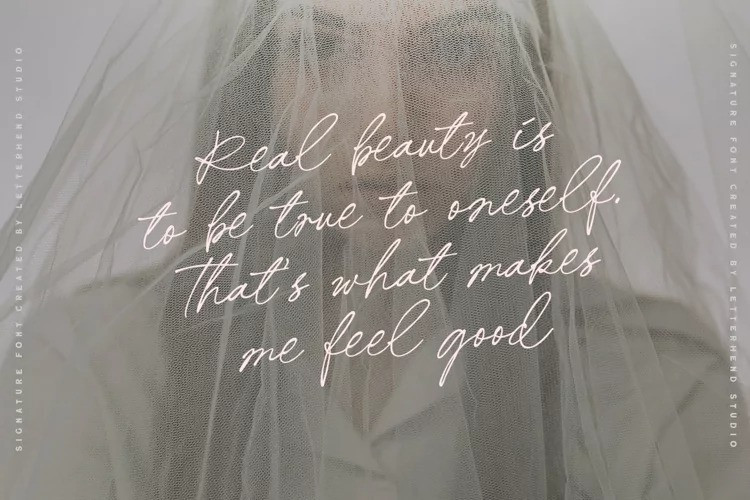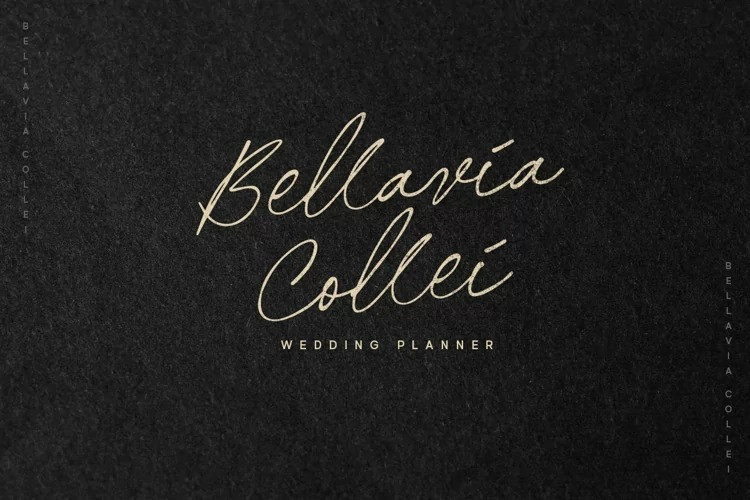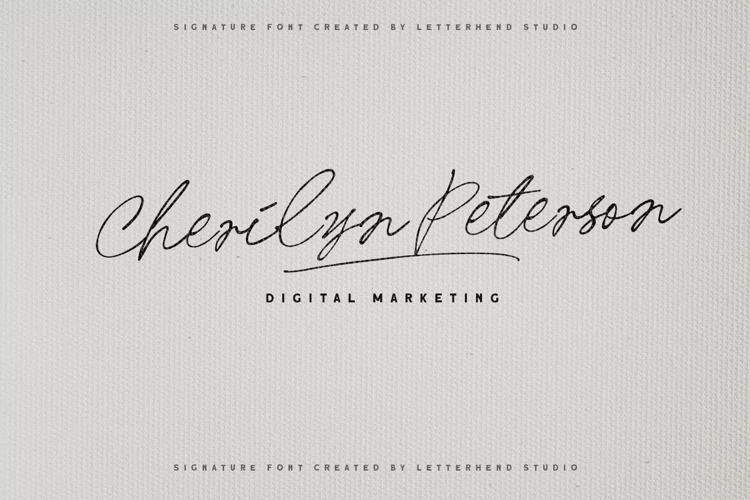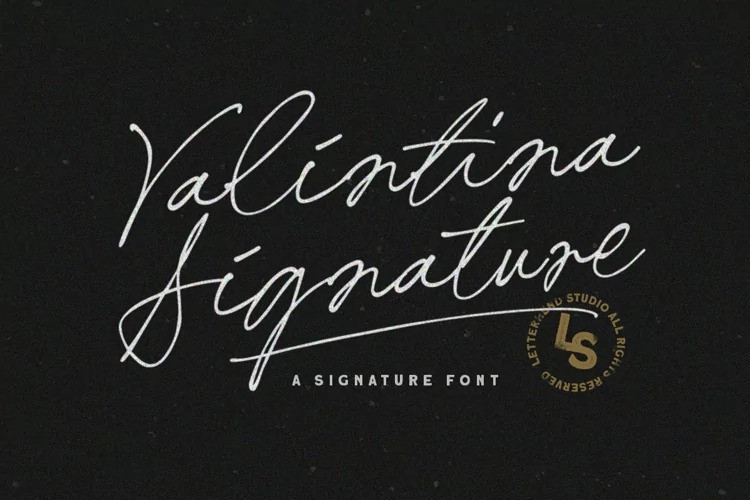
Valintina Font
Valintina Script Font is a modern handwritten script with bunch of ligatures. The stylistic alternate, ligatures and the tick and thin stroke make this font looks a real hand writing instead of typing a font. This type of font perfectly made to be applied especially in logo, and the other various formal forms such as invitations, labels, logos, magazines, books, greeting / wedding cards, packaging, fashion, make up, stationery, novels, labels or any type of advertising purpose.